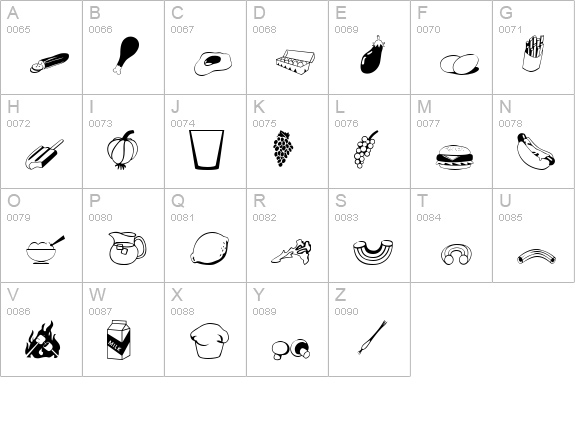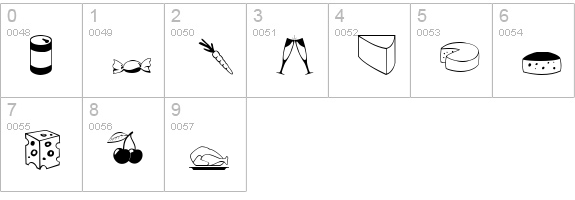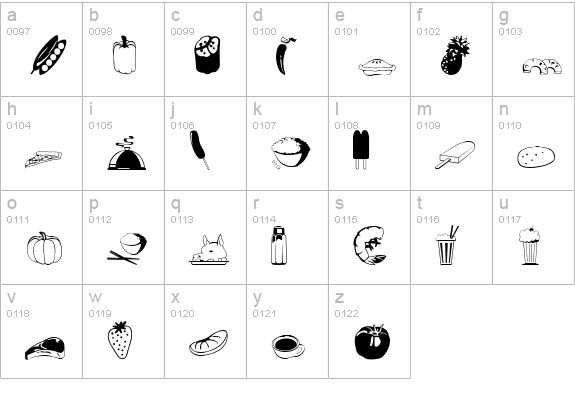
Introducing the stunning 87 font, a versatile and modern typeface that is sure to make a statement in your designs. With its sleek lines and bold presence, this font exudes confidence and style. Whether you're creating a logo, poster, or branding materials, the 87 font is the perfect choice to elevate your project to the next level. What's even better is that this font is completely free to download at FontsMarket.com. Yes, you read that right - you can get your hands on this amazing font without spending a dime. Take advantage of this opportunity to enhance your design arsenal with the 87 font and let your creativity soar. Download it now and unleash the endless possibilities that this font has to offer.